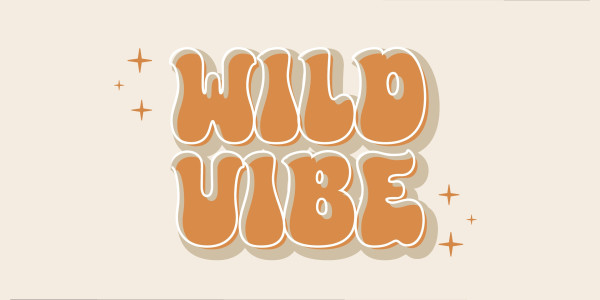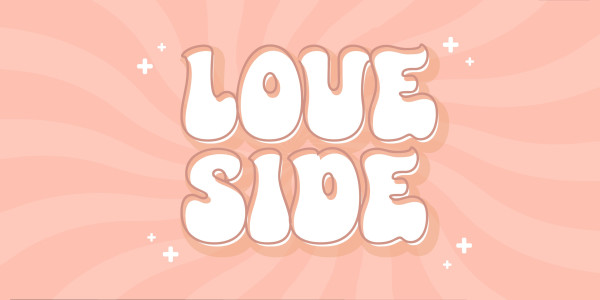
Pinewood Outline Font
Pinewood Outline Font, is a funky, bold, and playful typeface that encapsulates the retro, hippie spirit with a touch of graffiti and childish charm.